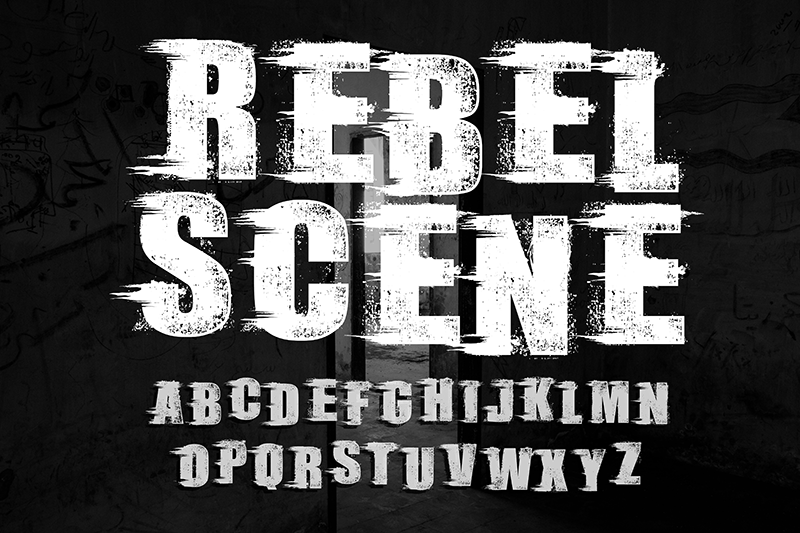
Rebel Scene
Rebel Scene Font
-REBEL SCENE-
Bold font with special Textured effects on each Character. Demo Version. Please visit http://knackpack.Studio for the Full license version. Thank you!